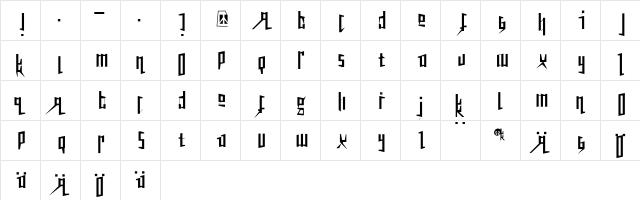
Peacetiqua Regular Font Preview
Peacetiqua Regular
Design Context for Peacetiqua Typeface
Peacetiqua is a composed and adaptable typeface that performs quietly and consistently across a wide range of design contexts.